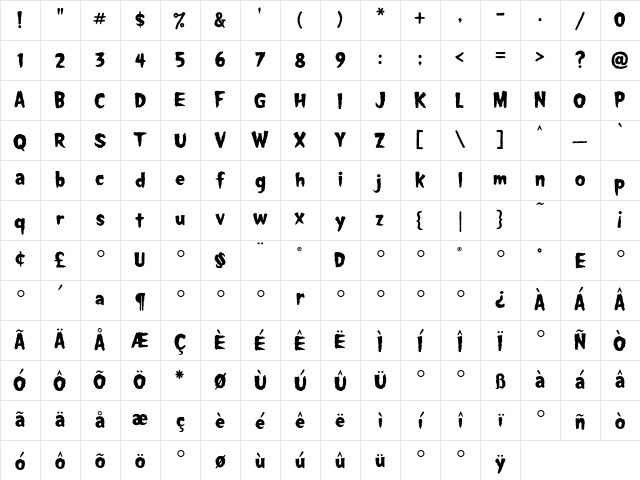
Spookhouse Regular
Design Context for Spookhouse
Spookhouse is a composed and adaptable typeface that performs quietly and consistently across a wide range of design contexts.